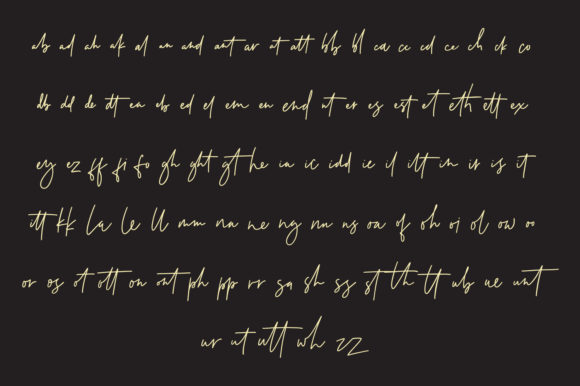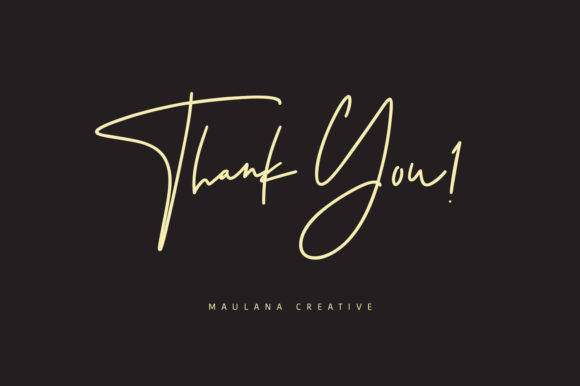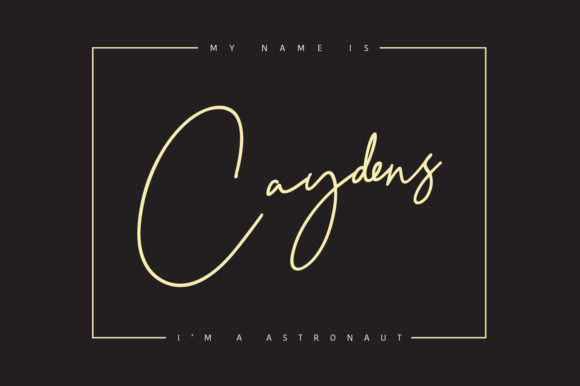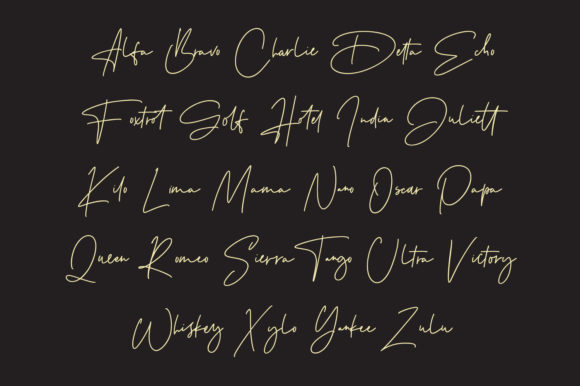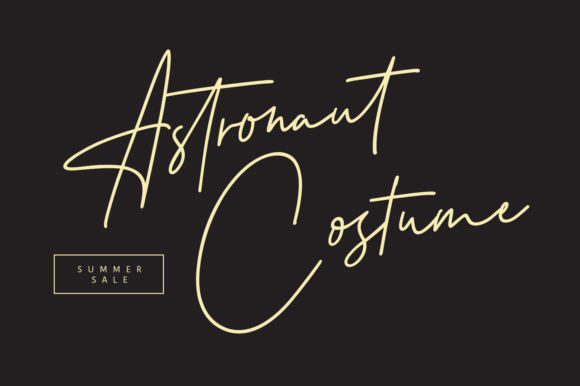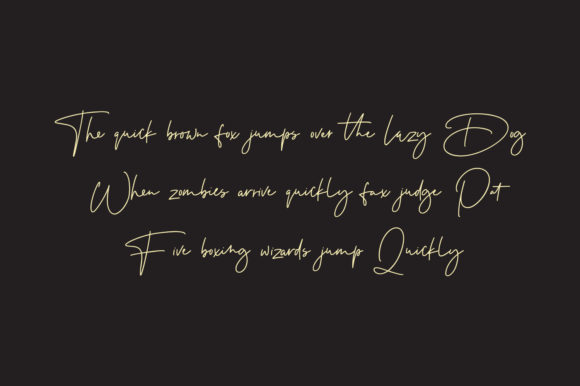
HomeScript FontsTestudo Font Script Fonts Testudo Font FacebookXPinterestWhatsApp Testudo Font Poster 2 Testudo Font Poster 3 Testudo Font Poster 4 Testudo Font Poster 5 Testudo Font Poster 6 Testudo Font Poster 7 Testudo Font Poster 8 Testudo Font Poster 9 Testudo Font Poster 10 Testudo Font Poster 11 About Testudo Font Testudo is a bold and light handwritten font with an amazing feel. Get inspired by its authentic elegance! DOWNLOAD ON CREATIVE FABRICAThis font is sold and delivered by Creative Fabrica. Font Canyon may earn a commission if you buy through this link. People also explored Boxise Font Vembazax Rm Love Font Ellando Font Sinta Letter Font Luisina Font Alita Font Degenerated Storybook 345 0 TagsTestudo Font Previous articleHandikraf FontNext articleShaloems Font LEAVE A REPLY Cancel reply Comment: Please enter your comment! Name:* Please enter your name here Email:* You have entered an incorrect email address! Please enter your email address here Website: Save my name, email, and website in this browser for the next time I comment. Personal Use Free Ciggs Personal Use Free Read more about this font I Am Exceptional Personal Use Free Read more about this font The 10 Best Handwriting Fonts to Add Personality to Your Designs Blog Read more about this font Baby Cute Personal Use Free Read more about this font BLOG Using Fonts in Digital Marketing: Tips to Strengthen Your Brand Identity In the realm of digital marketing, every visual element plays a crucial role in shaping a brand's identity, and fonts are no exception. The... Where to Buy American Fonts Online in 2024 5 Fonts That Will Dominate Design Trends in 2026 Modern Sans-Serif Fonts That Brands Love in 2025